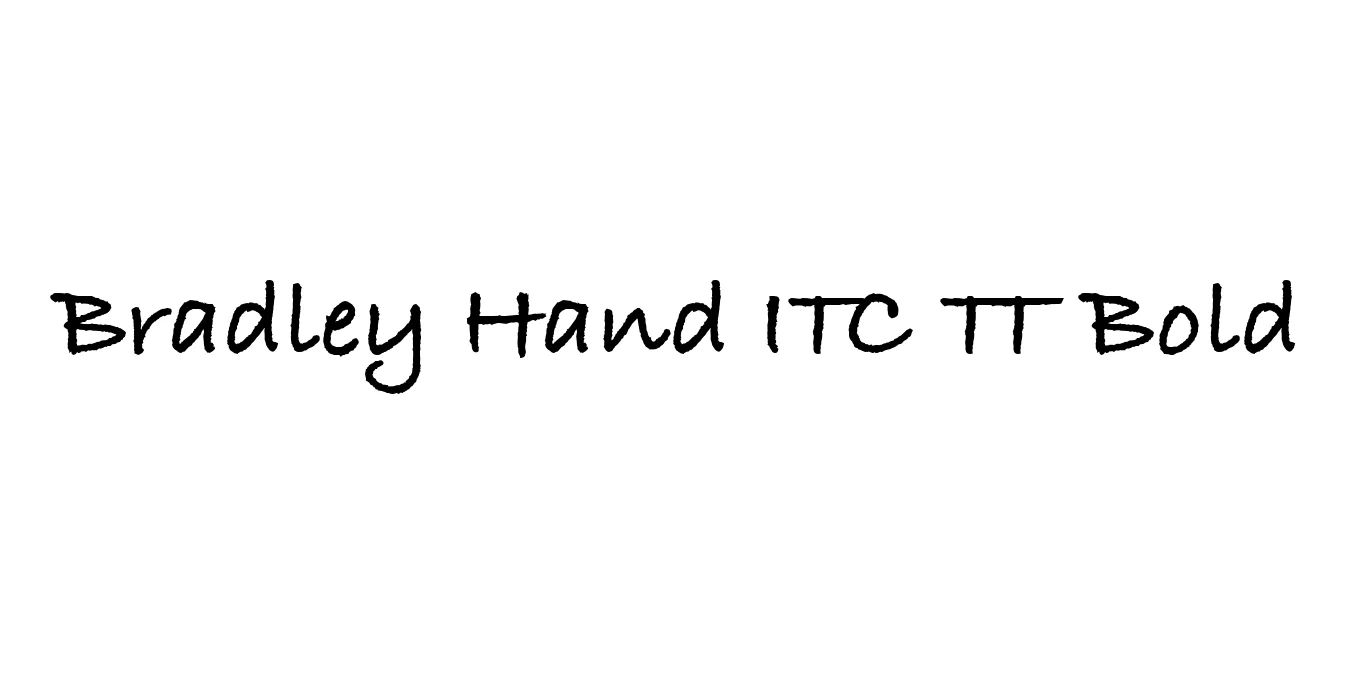
Bradley Hand ITC TT Bold
Designed by Richard Bradley
| Category | Script / Handwriting |
| Designer | Richard Bradley |
Bradley Hand ITC was designed by British calligrapher and artist Richard Bradley. It is a typeface based on his own handwriting, designed to capture a casual, rhythmic, and highly legible script style. Released by the International Typeface Corporation (ITC) in the mid-1990s, the font has achieved immense popularity due to its inclusion in major operating systems, becoming a go-to choice for designers seeking a personal, human touch in digital typography.
The Bold weight of Bradley Hand ITC TT offers a heavier stroke that enhances visibility while retaining the organic, hand-drawn characteristics of the original. Its slightly irregular edges and natural flow make it ideal for informal settings. It provides an approachable and friendly aesthetic, bridging the gap between formal typography and spontaneous penmanship, making it effective for both display and short blocks of text.
Excellent for adding a personal, handwritten feel to birthday or holiday cards.
Ideal for organic-looking captions, quotes, and branding elements on platforms like Instagram.
Perfect for digital layouts that require a realistic human touch.
Suited for informal party invitations and personal announcements.